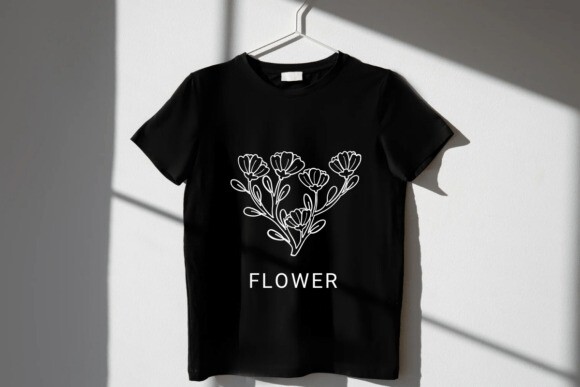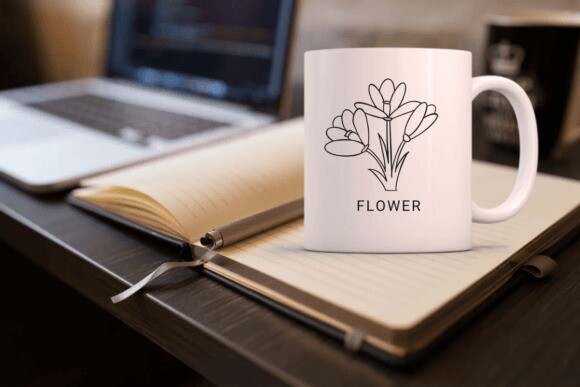
Cute Flower Font
Designer: Suphitchaya
Cute Flower Font is a playful font made up of adorable little flower designs instead of letters. Each character is a unique, cute flower, perfect for adding a fun and charming touch to your designs!